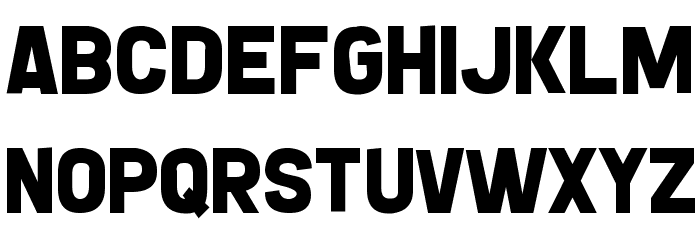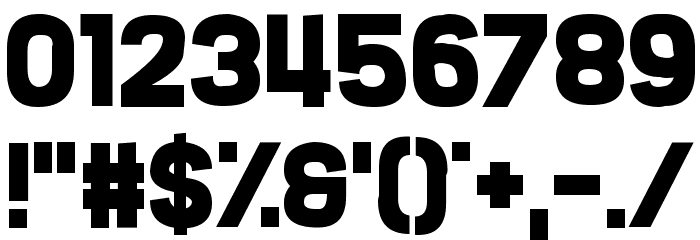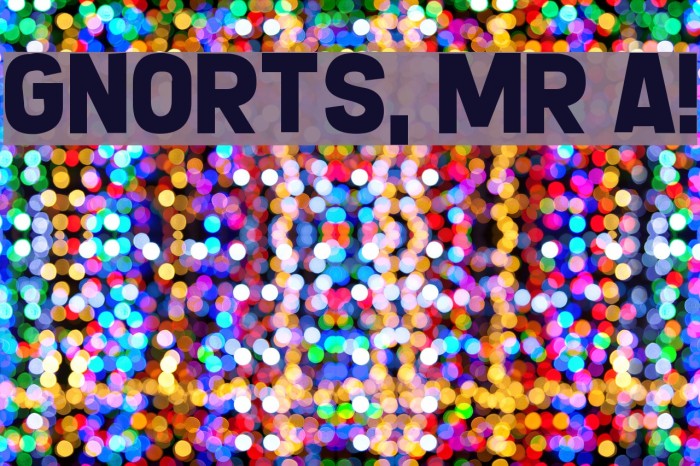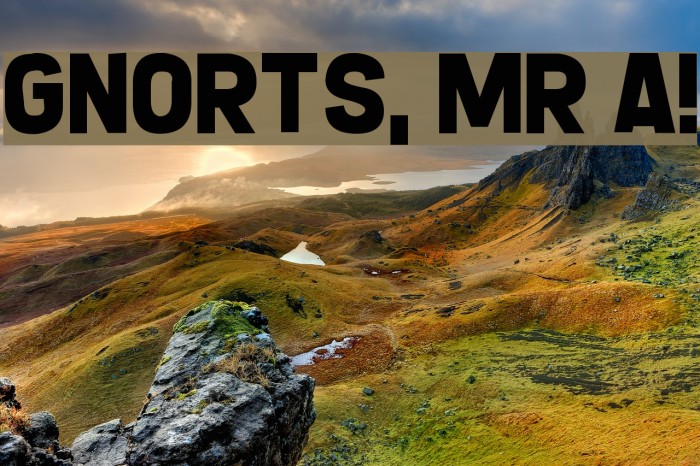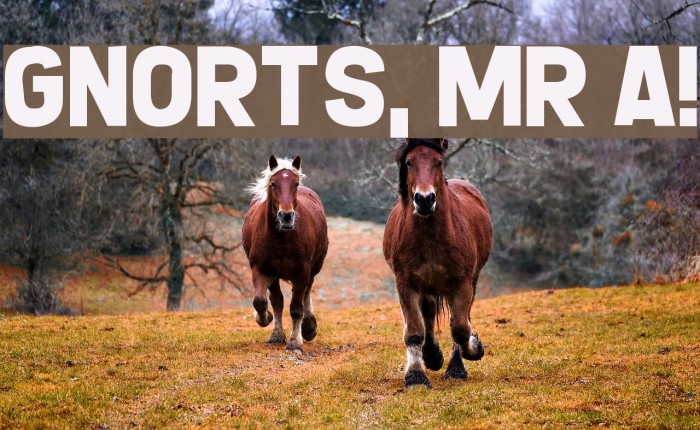
Gnorts, Mr A! Font
This font is a bold, sans-serif typeface characterized by its strong, geometric shapes and uniform stroke widths. The letters are designed with a modern aesthetic, featuring clean lines and a robust presence. The uppercase and lowercase letters maintain a consistent style, providing a cohesive look across different text cases. The numerals are equally bold, ensuring readability and impact. Special characters are included, matching the overall bold and straightforward design. This font is ideal for making a statement, with its high visibility and contemporary appeal.
A bold, modern sans-serif font with strong geometric shapes.
- Proposed Projects: Ideal for headlines, posters, branding, and any project requiring a strong visual impact.